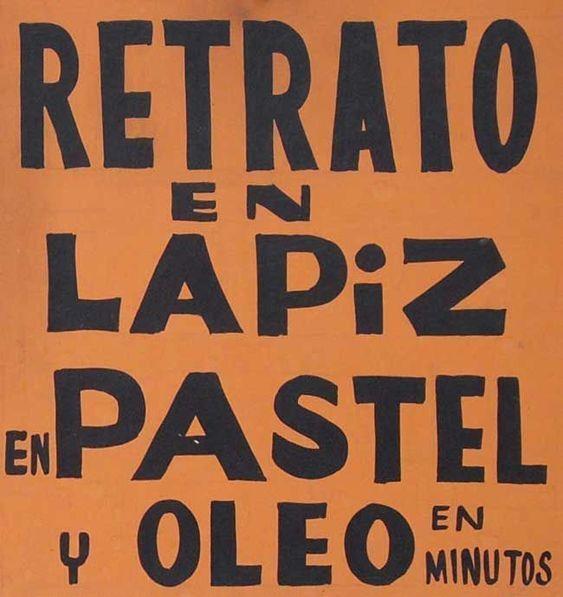
Font identification: 'RETRATO' Hand Painted Sign
Another font we are after sourcing is something along the lines of this handpainted sign we found online. We like the hand painted signage feel - particularly of the word 'RETRATO'.